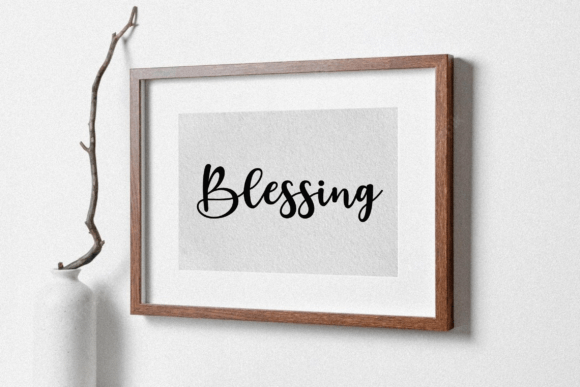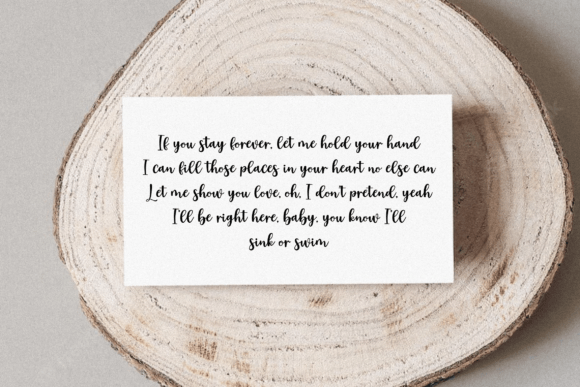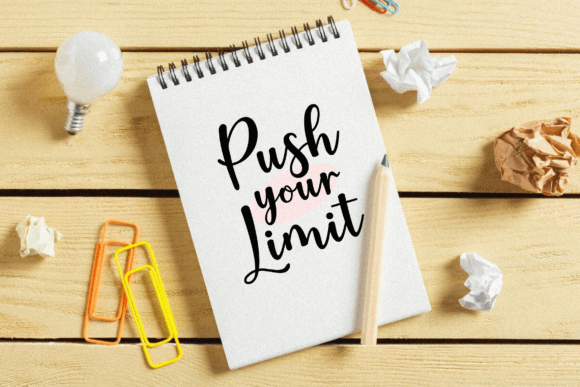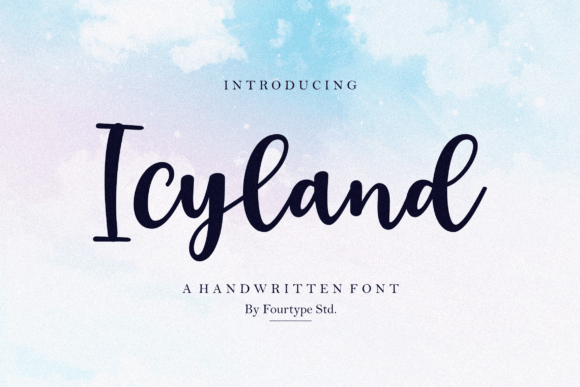
Introduction to Icyland Font
Icyland is an exquisite handwritten font, masterfully designed to become a true favorite.
Key Features of Icyland Font
Why Choose Icyland Font?
Icyland Font offers exceptional quality and versatility, making it a valuable addition to your design toolkit. Whether you’re creating for personal projects or commercial use, Icyland Font delivers professional results.